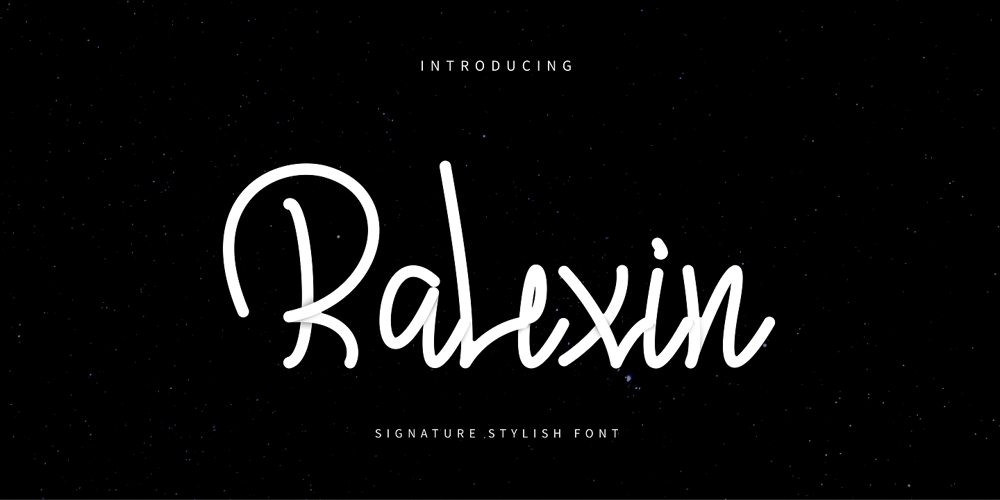
Ralexin Font Family was designed by Taufiq Wijaya and published by Mifiq. Ralexin contains 2 styles and family package options. Ralexin is an excellent and elegant signature font for writing.Ralexin is suitable for social media posts, advertisements, logos & branding, invitations, product design, photography, watermarks, labels, wedding designs, product packaging, any event that requires a handwriting.